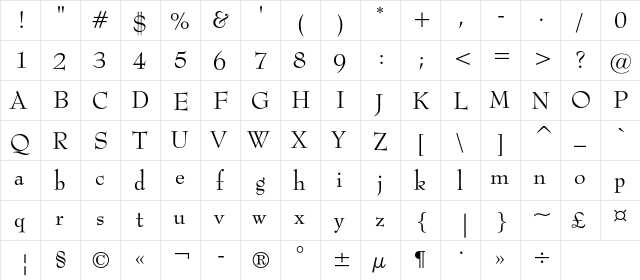
MetropolC Regular
Design Context for MetropolC Typeface
MetropolC offers clean, dependable letterforms without strong stylistic allegiance, making it a practical choice for designers who need flexibility.